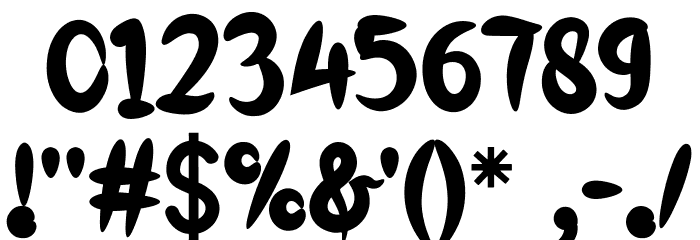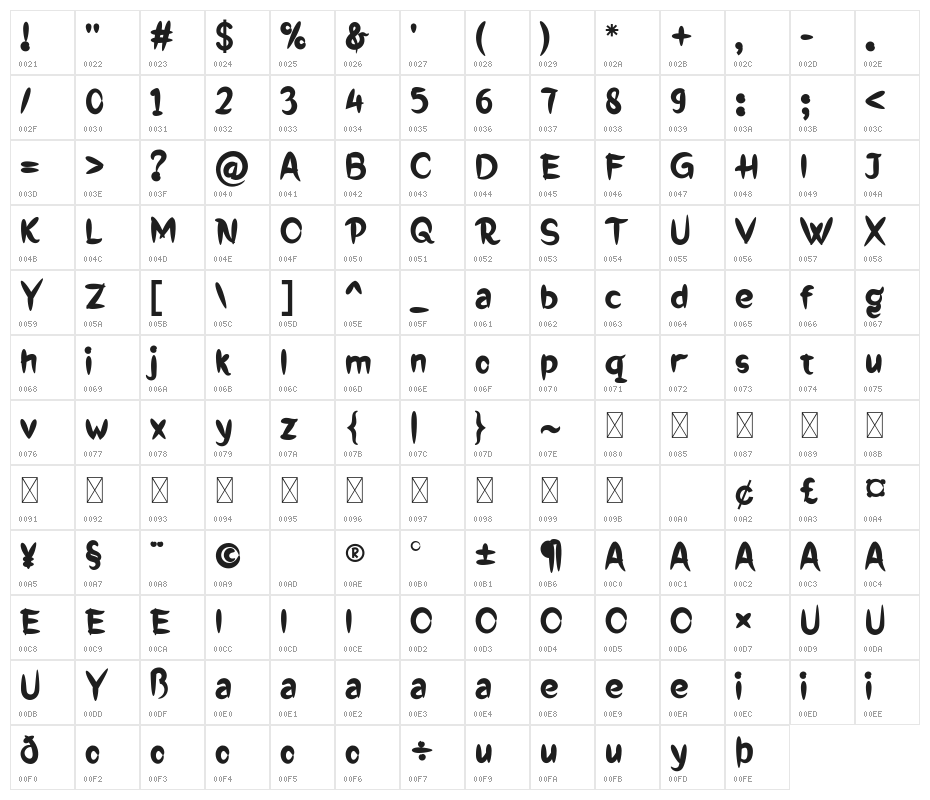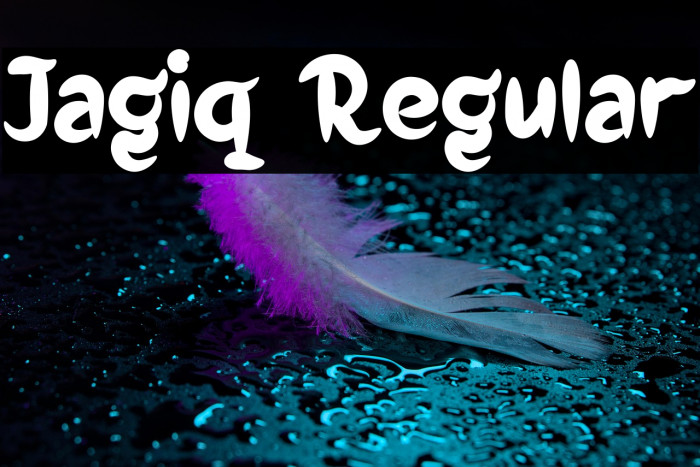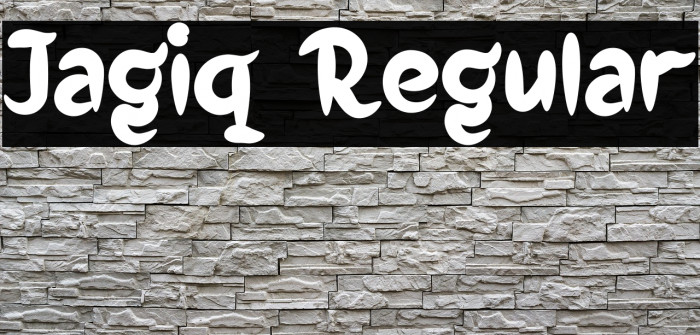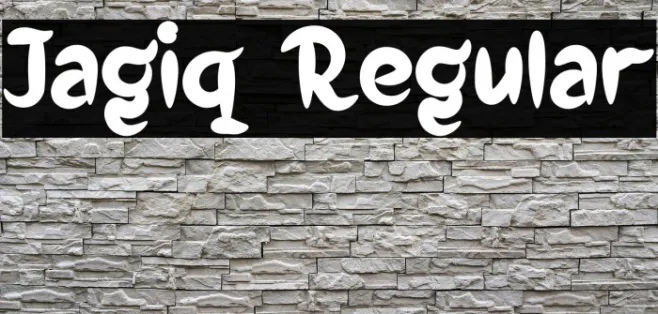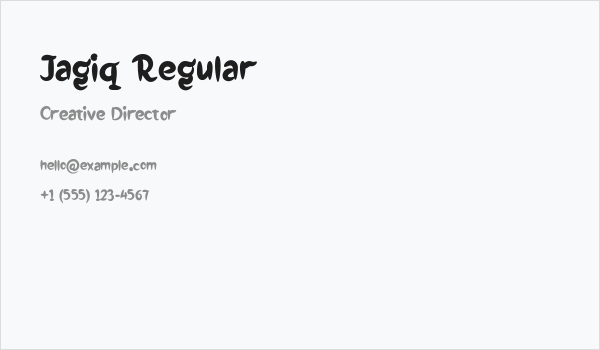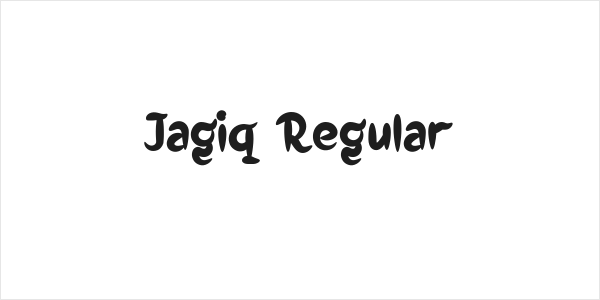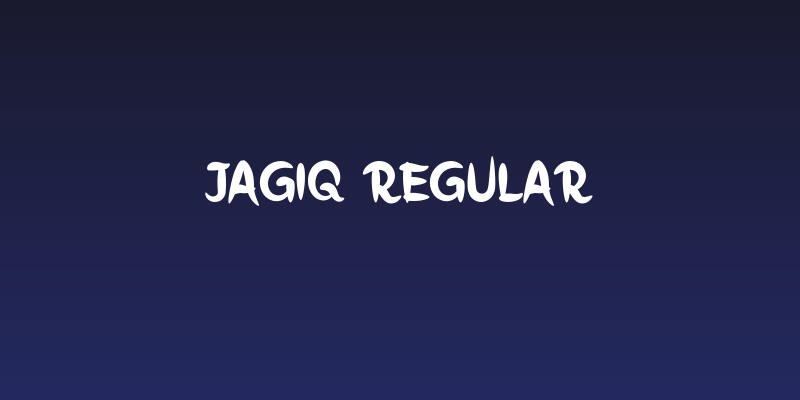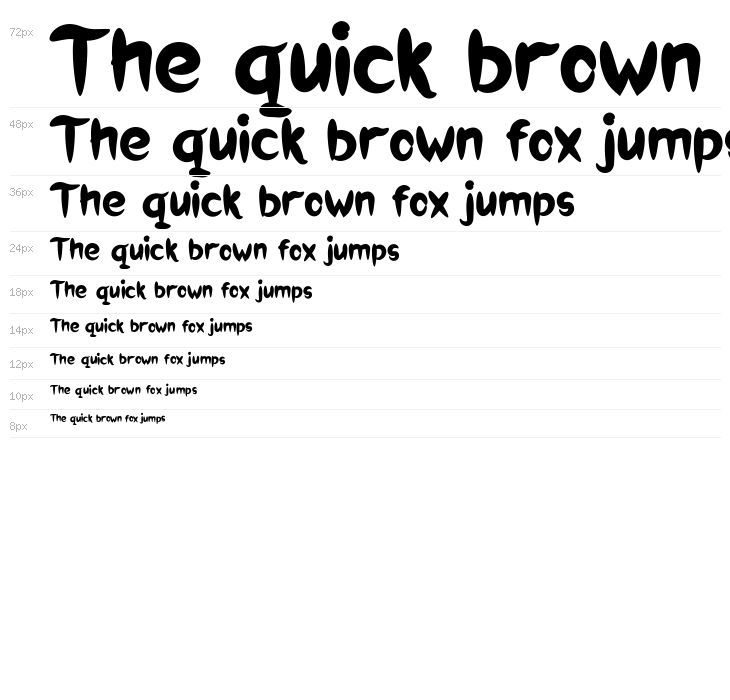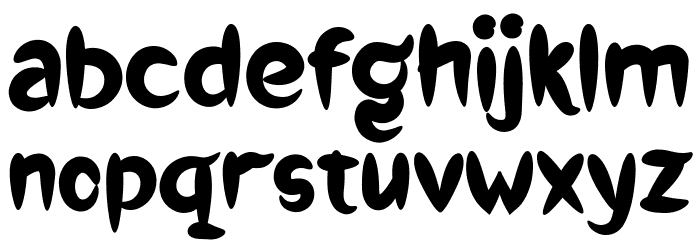
Jagiq Regular Font
Jagiq Regular Description
This font features a playful and bold style with a handwritten appearance. The characters are rounded and slightly irregular, giving it a casual and friendly look. The uppercase and lowercase letters maintain a consistent weight, while the numerals and special characters complement the overall style. The strokes are thick, contributing to a strong visual presence, making it suitable for eye-catching designs. The font's unique character shapes and informal style make it ideal for projects that require a personal touch or a fun, approachable aesthetic.
Overall StylePlayful
Proposed ProjectsIdeal for children's books, playful branding, greeting cards, and informal invitations.